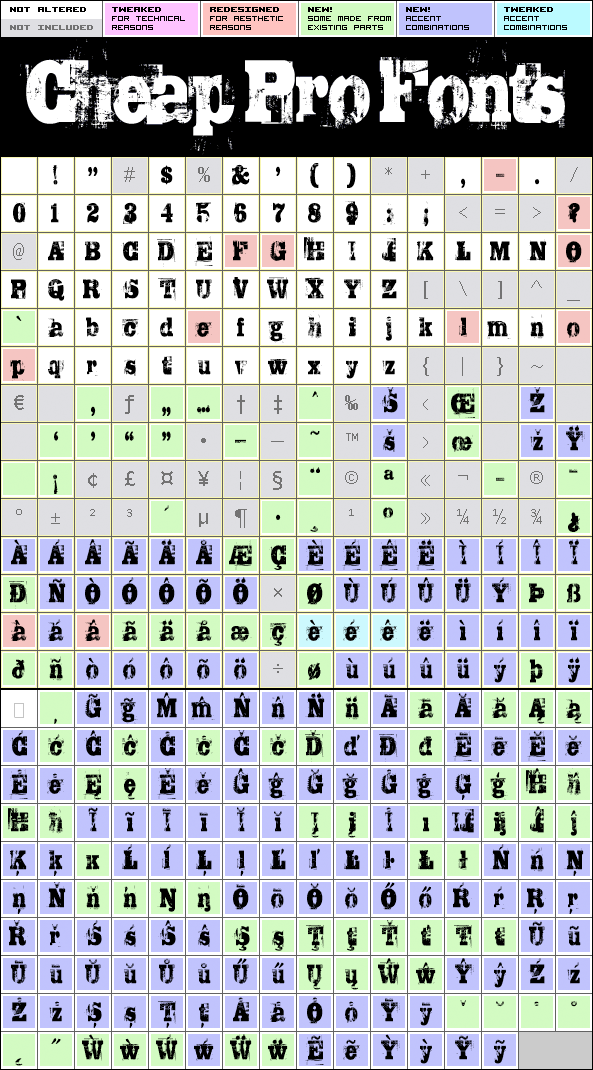
Trashed Pro
Trashed Pro by Guillaume Séguin
Guillaume Séguin
324 glyphs!
(81 in original)
536 class kernpairs
= 11840 kerning pairs
(none in original)
An extremely detailed grunge typeface! Although it has the fewest characters of our library (no need for typographic niceties in such a rough headline font ;) the font files are the largest from us yet: the OpenType file is a whooping 1,7Mb!
Trashed Pro is a professionally reworked font that contains an extended character set for setting text in 65 languages requiring more than the basic A-Z!